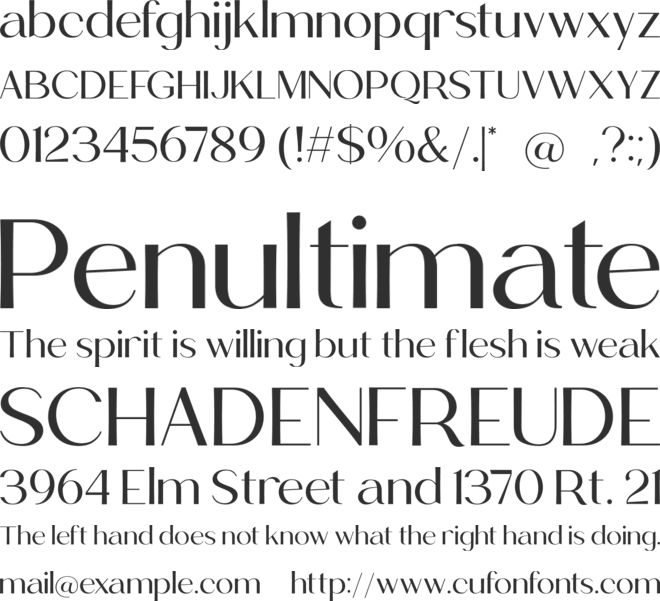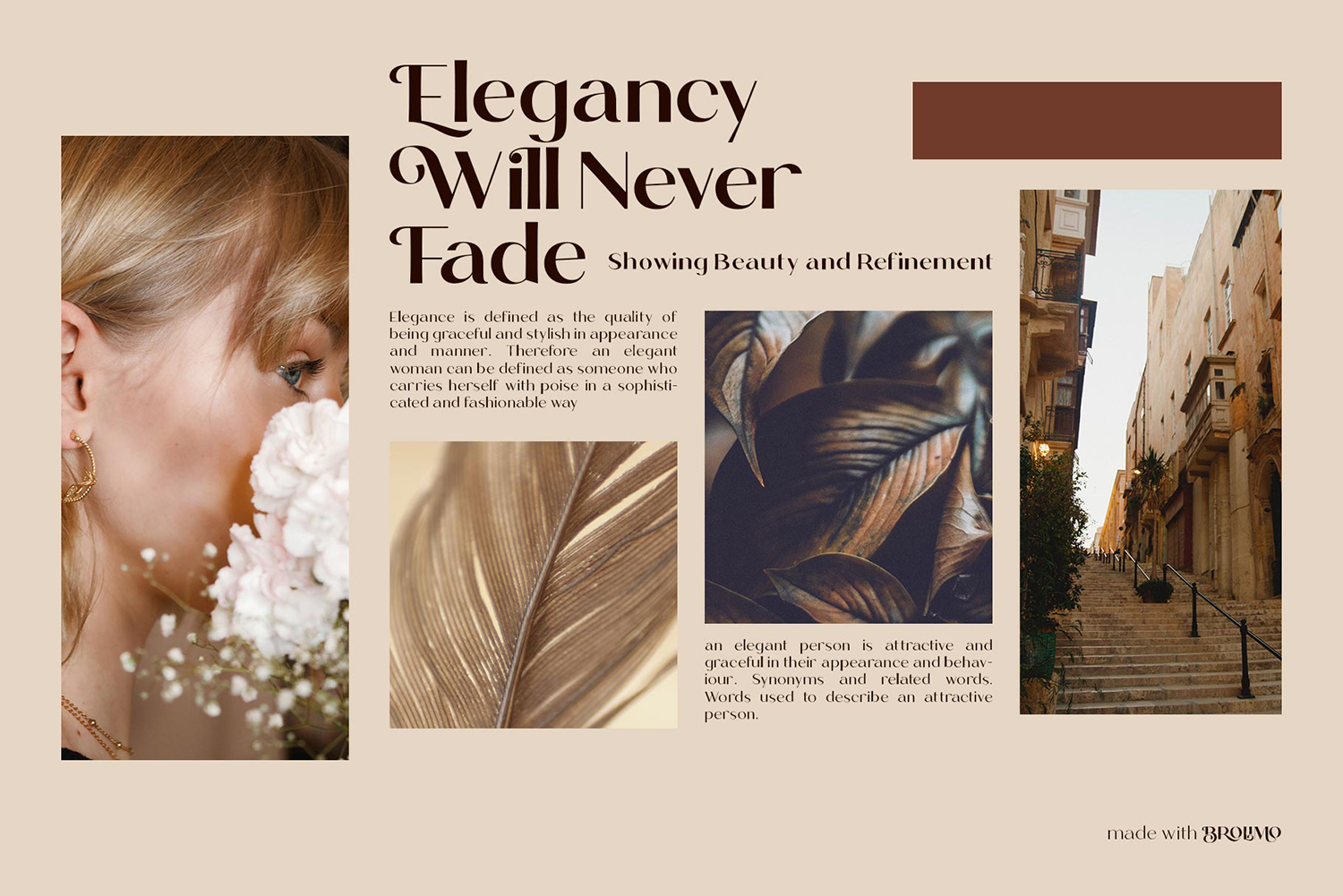
Brolimo Font Download - Web the elegant modern font creates a unique design and is sure to steal the eye of the design target audience. Web bavicka font is a modern retro serif font that features unique alternate and ligature characters. Web brolimo is an elegant and trendy display font. This font is pua encoded which means you can access all of the glyphs. Web the elegant modern font creates a unique design and is sure to steal the eye of the design target audience.
This font is pua encoded which means you can access all of the glyphs. Web the elegant modern font creates a unique design and is sure to steal the eye of the design target audience. Web the elegant modern font creates a unique design and is sure to steal the eye of the design target audience. Web bavicka font is a modern retro serif font that features unique alternate and ligature characters. Web brolimo is an elegant and trendy display font.
Web brolimo is an elegant and trendy display font. Web the elegant modern font creates a unique design and is sure to steal the eye of the design target audience. Web bavicka font is a modern retro serif font that features unique alternate and ligature characters. This font is pua encoded which means you can access all of the glyphs. Web the elegant modern font creates a unique design and is sure to steal the eye of the design target audience.
Web bavicka font is a modern retro serif font that features unique alternate and ligature characters. This font is pua encoded which means you can access all of the glyphs. Web the elegant modern font creates a unique design and is sure to steal the eye of the design target audience. Web the elegant modern font creates a unique design.
BROLIMO шрифт
Web brolimo is an elegant and trendy display font. Web bavicka font is a modern retro serif font that features unique alternate and ligature characters. Web the elegant modern font creates a unique design and is sure to steal the eye of the design target audience. This font is pua encoded which means you can access all of the glyphs..
Brolimo Elegant Modern Font Family on Behance
Web bavicka font is a modern retro serif font that features unique alternate and ligature characters. Web brolimo is an elegant and trendy display font. Web the elegant modern font creates a unique design and is sure to steal the eye of the design target audience. This font is pua encoded which means you can access all of the glyphs..
Brolimo Font
Web the elegant modern font creates a unique design and is sure to steal the eye of the design target audience. Web brolimo is an elegant and trendy display font. This font is pua encoded which means you can access all of the glyphs. Web the elegant modern font creates a unique design and is sure to steal the eye.
Web the elegant modern font creates a unique design and is sure to steal the eye of the design target audience. Web the elegant modern font creates a unique design and is sure to steal the eye of the design target audience. Web bavicka font is a modern retro serif font that features unique alternate and ligature characters. This font.
Web the elegant modern font creates a unique design and is sure to steal the eye of the design target audience. Web bavicka font is a modern retro serif font that features unique alternate and ligature characters. This font is pua encoded which means you can access all of the glyphs. Web brolimo is an elegant and trendy display font..
BROLIMO Regular 1.000 Fonts Free Download
Web the elegant modern font creates a unique design and is sure to steal the eye of the design target audience. Web the elegant modern font creates a unique design and is sure to steal the eye of the design target audience. Web brolimo is an elegant and trendy display font. Web bavicka font is a modern retro serif font.
Brolimo Font Download Fonts
Web bavicka font is a modern retro serif font that features unique alternate and ligature characters. Web brolimo is an elegant and trendy display font. This font is pua encoded which means you can access all of the glyphs. Web the elegant modern font creates a unique design and is sure to steal the eye of the design target audience..
Brolimo Sans Serif Font Free Download Official Website
Web bavicka font is a modern retro serif font that features unique alternate and ligature characters. Web brolimo is an elegant and trendy display font. Web the elegant modern font creates a unique design and is sure to steal the eye of the design target audience. This font is pua encoded which means you can access all of the glyphs..
Brolimo Free Font Hey, fonts!
Web the elegant modern font creates a unique design and is sure to steal the eye of the design target audience. Web bavicka font is a modern retro serif font that features unique alternate and ligature characters. This font is pua encoded which means you can access all of the glyphs. Web brolimo is an elegant and trendy display font..
Web The Elegant Modern Font Creates A Unique Design And Is Sure To Steal The Eye Of The Design Target Audience.
This font is pua encoded which means you can access all of the glyphs. Web bavicka font is a modern retro serif font that features unique alternate and ligature characters. Web brolimo is an elegant and trendy display font. Web the elegant modern font creates a unique design and is sure to steal the eye of the design target audience.